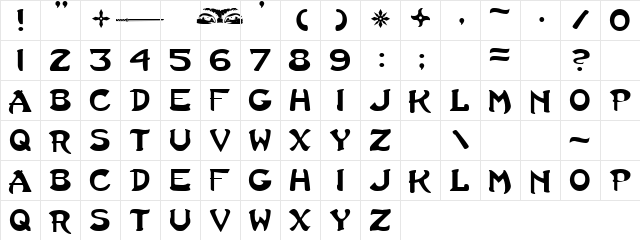
Bullock Cart Regular
Design Context for Bullock Cart Typeface
Bullock Cart is a composed and adaptable typeface that performs quietly and consistently across a wide range of design contexts.